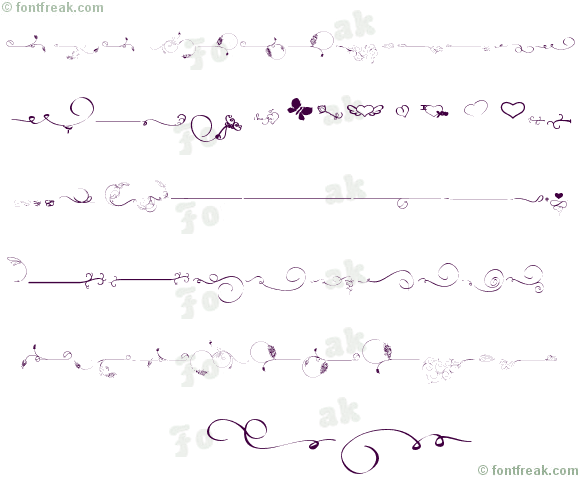
Ornamind
Ornamind by Maelle.K is a captivating decorative font that embodies elegance and creativity. This font falls into the category of display typefaces, making it an excellent choice for projects that require a touch of flair and artistic expression. The visual characteristics of Ornamind are striking, featuring a combination of intricate swirls and delicate lines that create a whimsical yet sophisticated appearance. The stroke weight varies throughout the letters, providing a sense of movement and rhythm, while the ample spacing between characters enhances readability, making it suitable for various applications.
Ornamind shines in specific use cases where its unique style can truly stand out. It is an ideal choice for wedding invitations, where the decorative elements can convey romance and elegance. Additionally, this font works beautifully for movie posters, adding a touch of drama and intrigue. Restaurant menus benefit from Ornamind's artistic flair, drawing diners in and enhancing their dining experience. Furthermore, it can be effectively utilized in branding for artisanal shops or craft businesses, showcasing creativity and individuality.
What makes Ornamind stand out is its ability to blend artistry with functionality. The intricate design details invite viewers to appreciate the craftsmanship while remaining versatile enough for diverse applications. For anyone seeking to add a unique flair to their designs, the Ornamind font free download is a perfect choice to explore creativity and enhance visual storytelling.